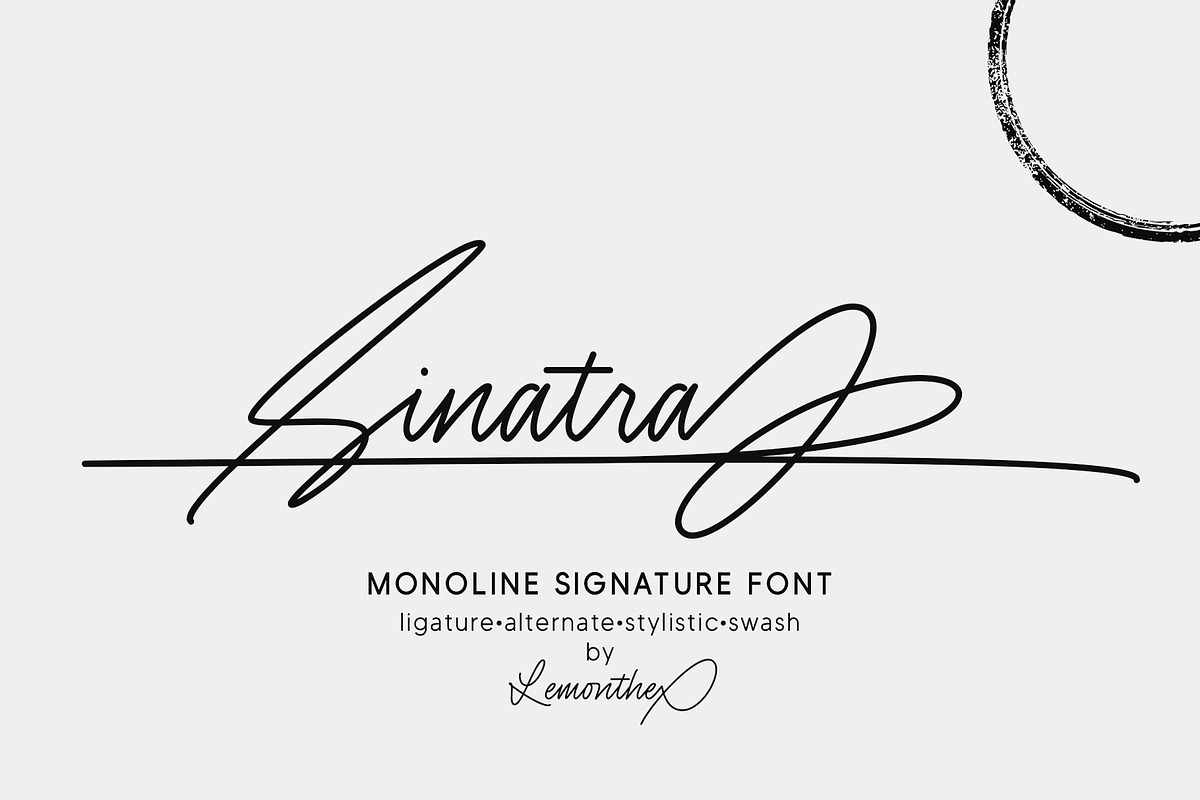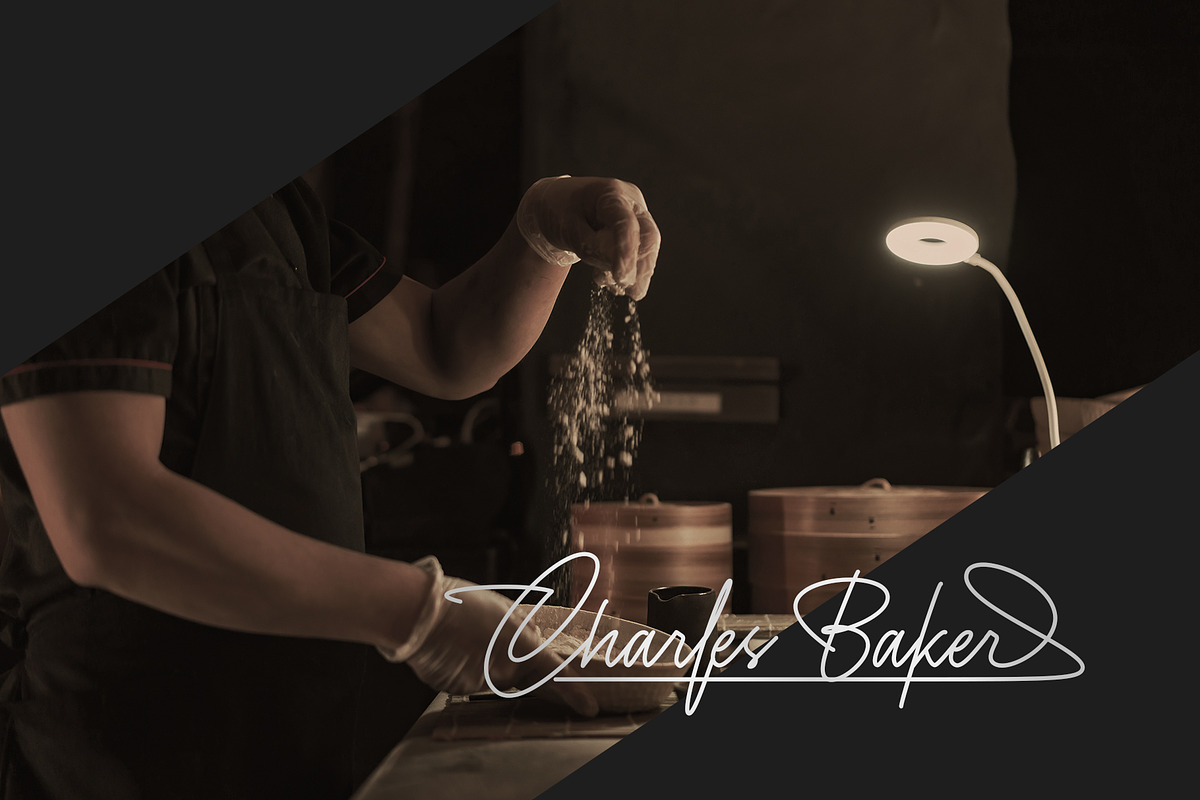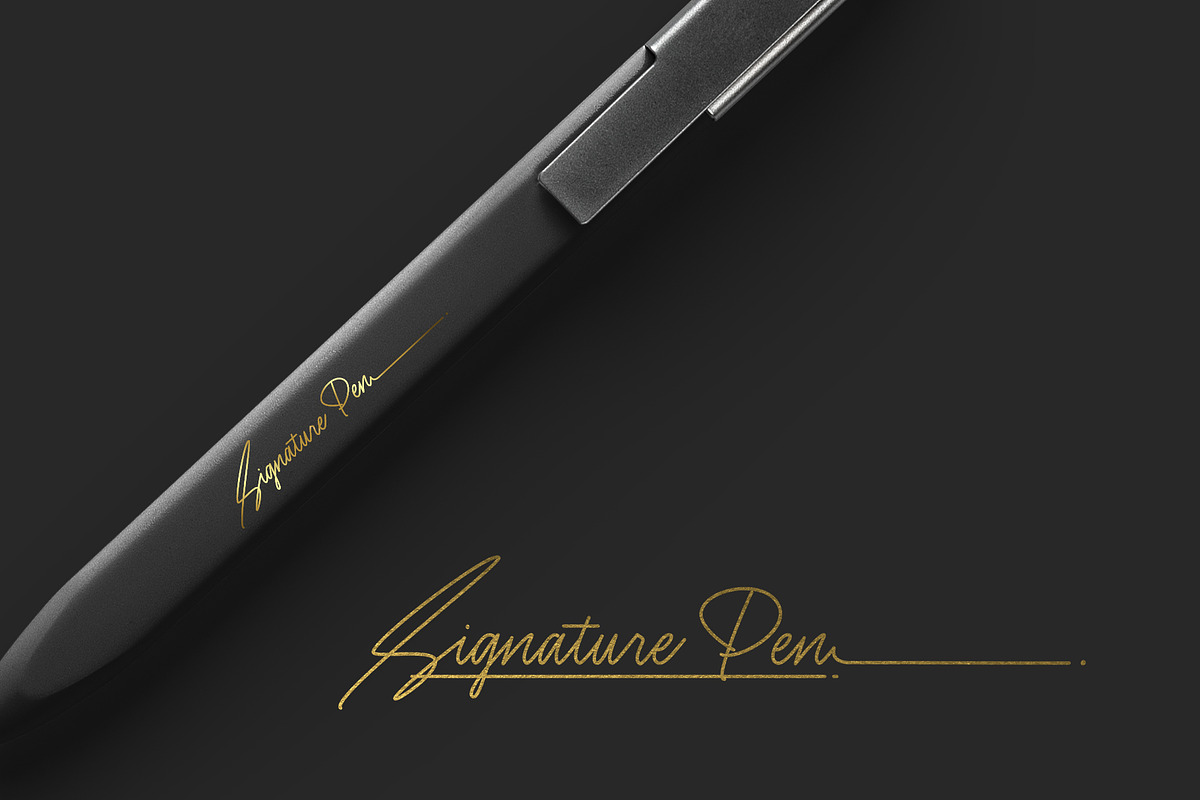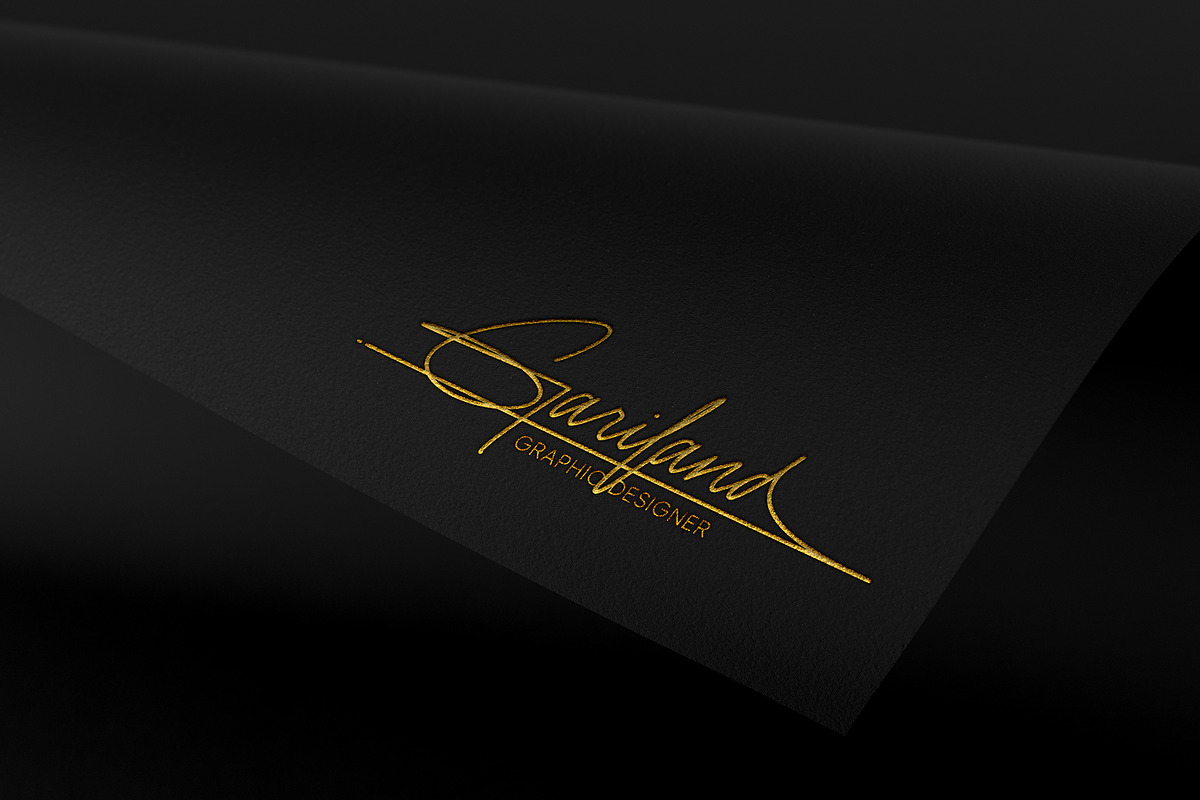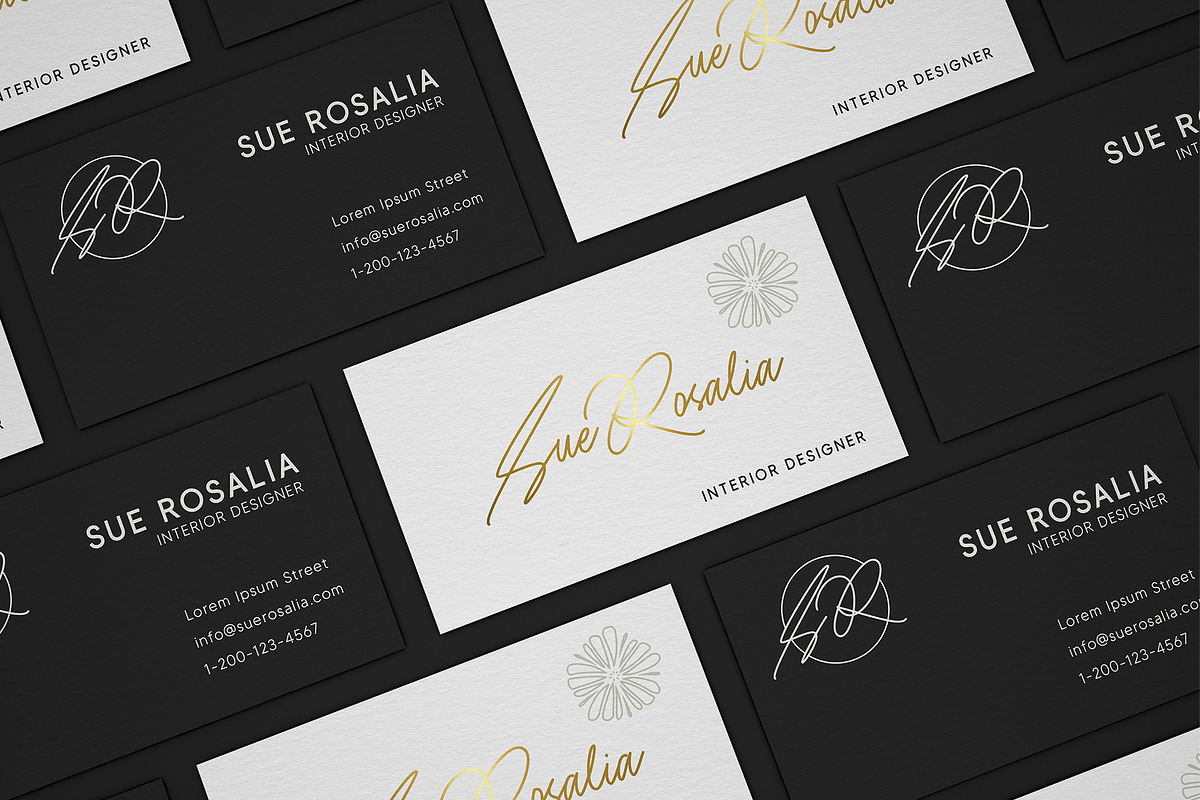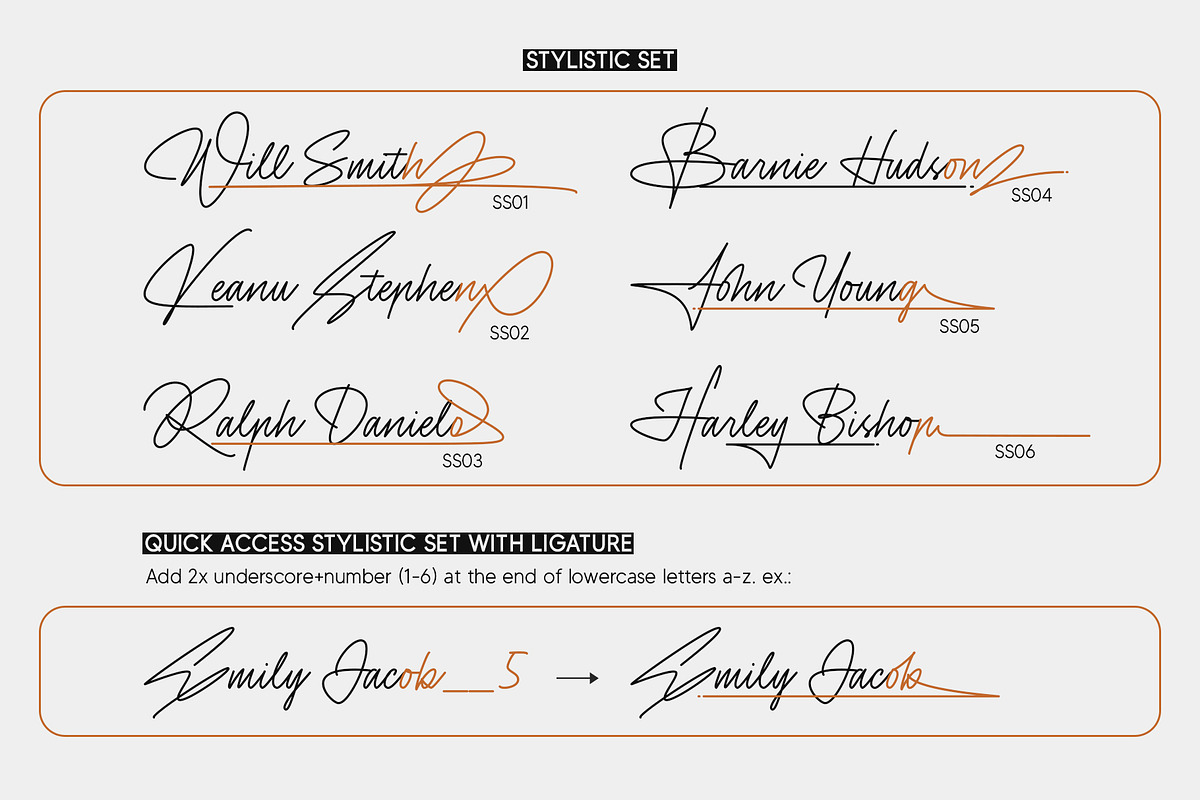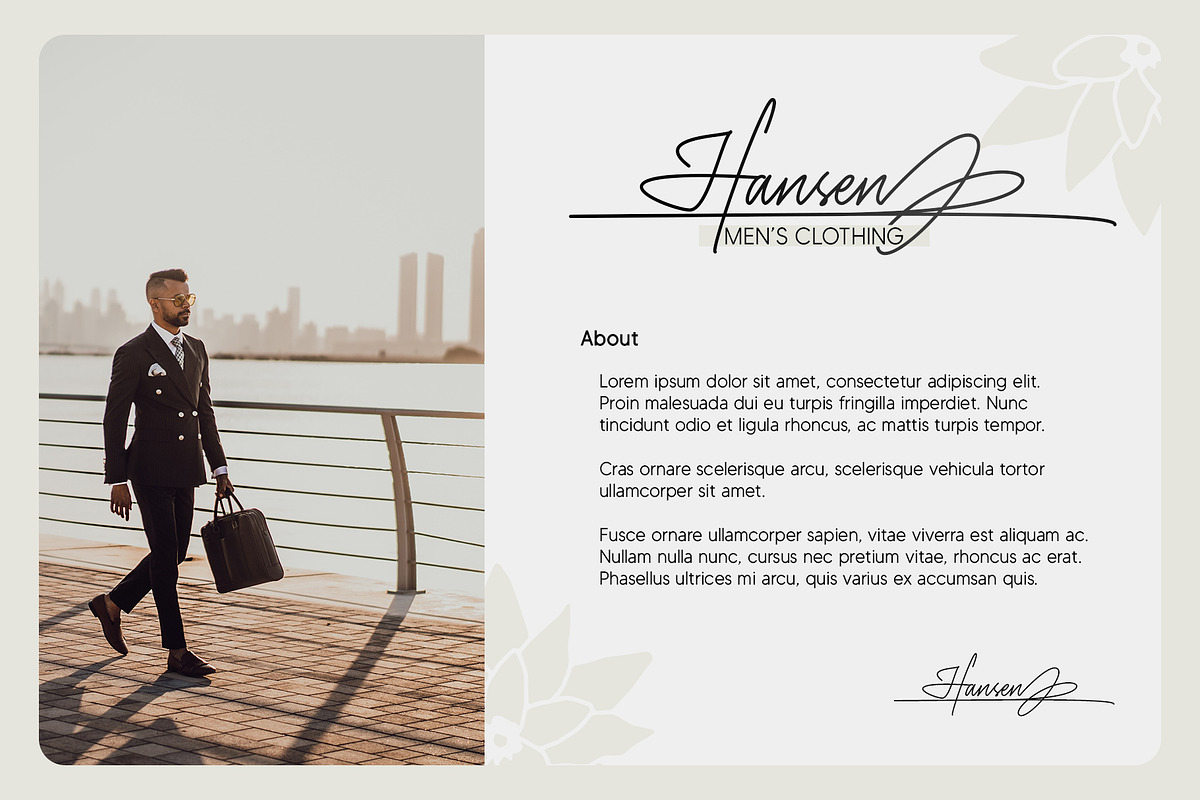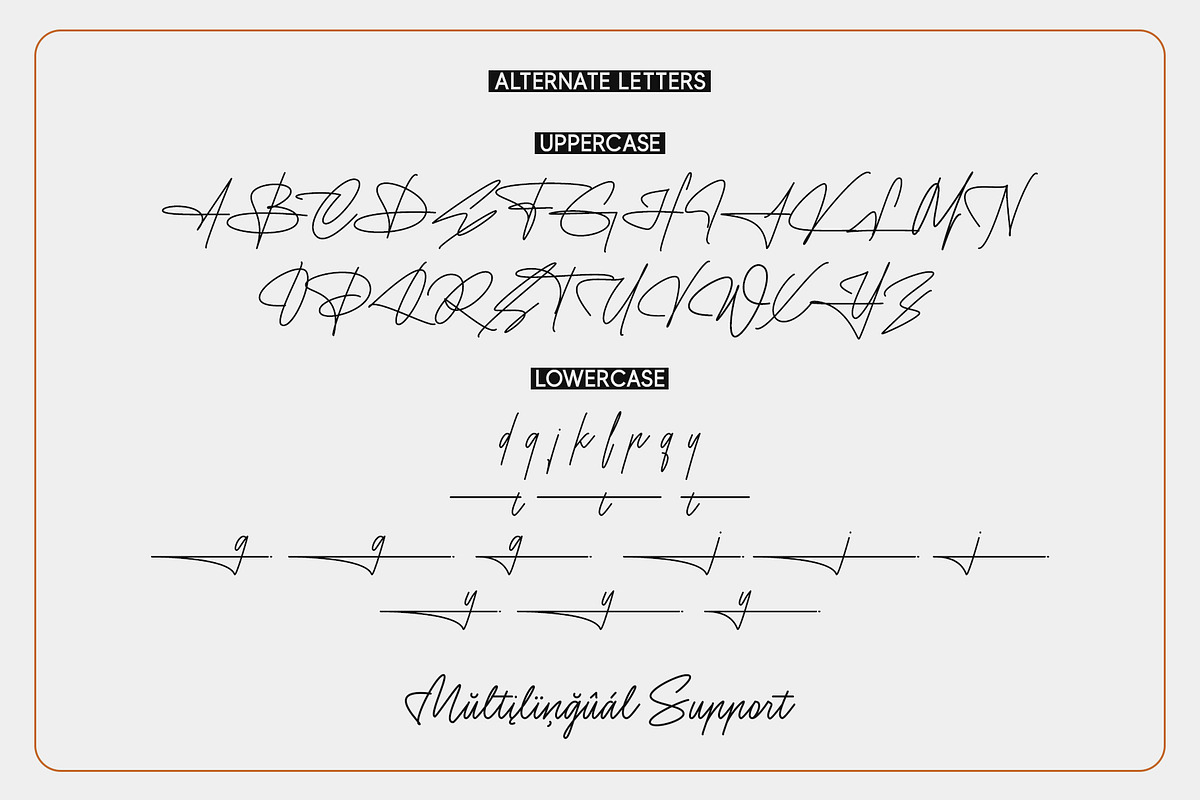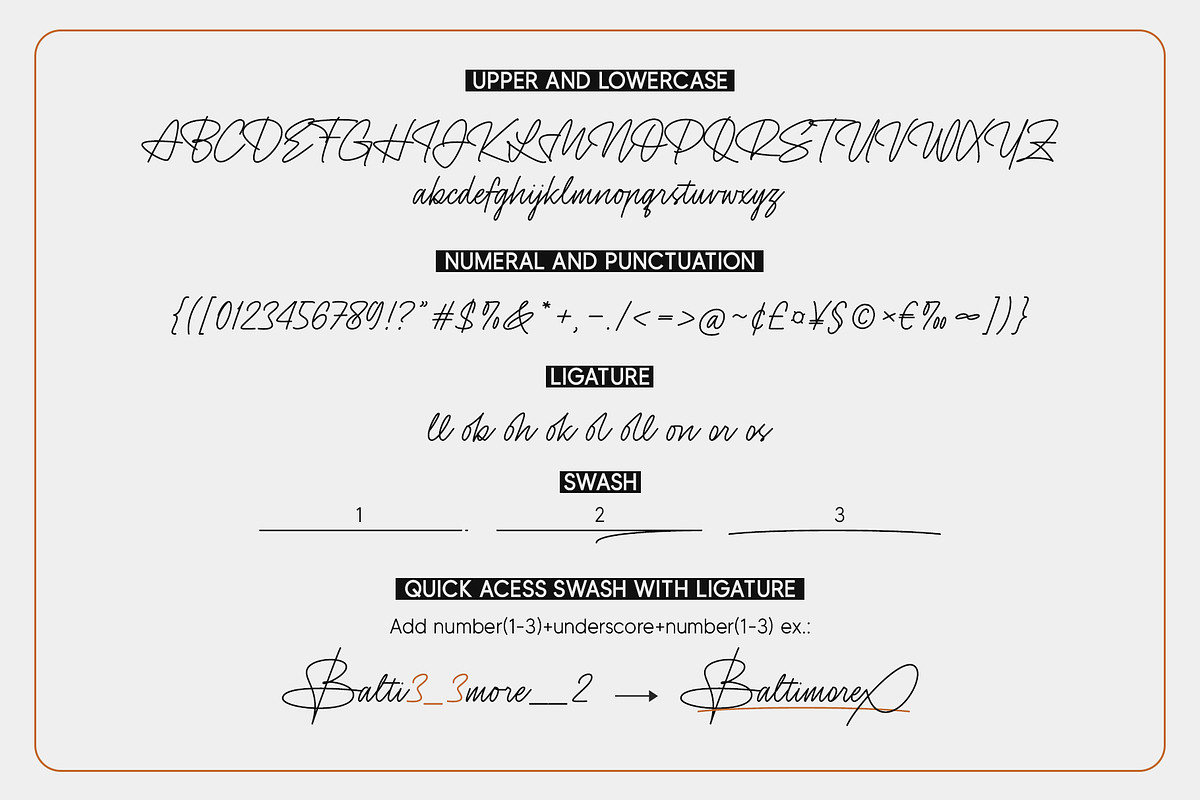
Sinatra | Monoline Signature
Sinatra is an elegant signature font with a monoline style, featuring a lovely flow. It has a clean, thin and smooth vibe and it will be a hit for any design that you want to add it to. It’s perfect for many different projects such as logos and branding, invitations, signature, labels, photography, and more!
- Stylistic Set
- Stylistic Set: Add 2x underscore + number (1-6) at the end of lowercase letters a-z. Example: __1
- Swash: Add number (1–3) + underscore + number (1–3) Example: 1_1, 2_2, 3_3